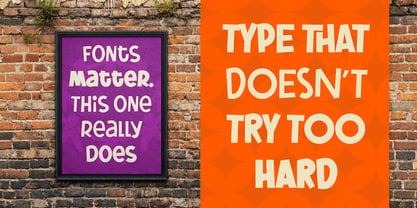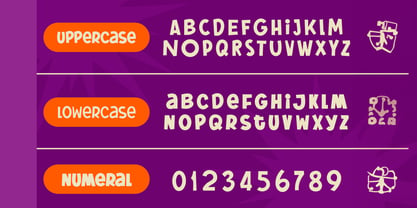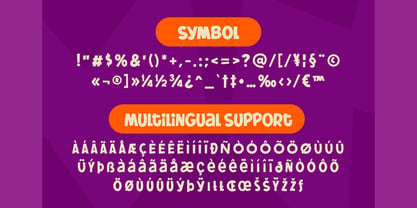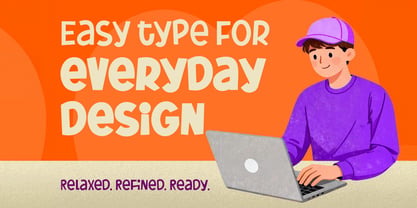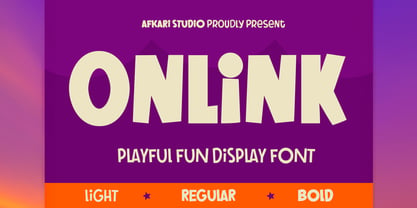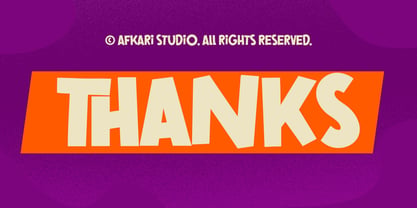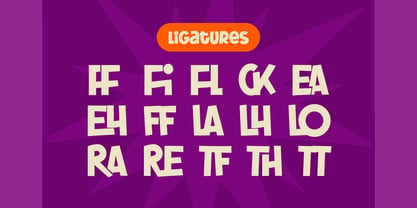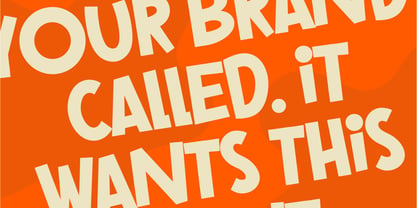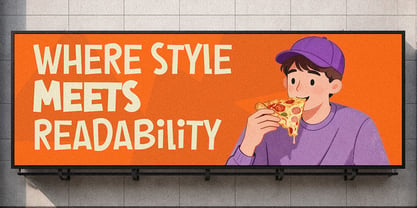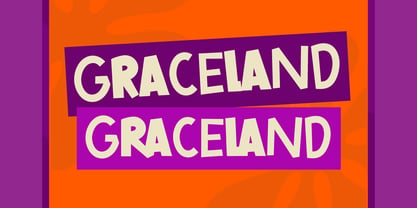
Onlink
The Onlink Font Family was designed by Musthafa Kamal Emje and published by Afkari Studio. Onlink contains 3 styles and family package options. More about this family
Onlink is a playful and fun display font designed to bring cheerful energy and bold personality into your creative projects. Featuring lively letterforms and friendly character shapes, this font instantly creates an eye-catching and approachable look. Built with a modern playful style, Onlink is perfect for designs that need to feel joyful, casual, and expressive while maintaining strong readability for headlines and branding. Whether used in digital or print projects, this font helps designs stand out with a warm and fun personality. Onlink is ideal for creatives who want typography that feels energetic, modern, and full of character. Highlighted Features: - Playful fun display font - Bold and friendly letterforms - Uppercase & lowercase characters - Strong readability for headlines - Numbers & punctuation - Fully accessible without additional design software. - Mültîlíñgúãl Sùppört for; ä ö ü Ä Ö Ü ß ¿ ¡ Onlink – Playful Fun Display Font brings joyful personality and bold fun to every design it touches.